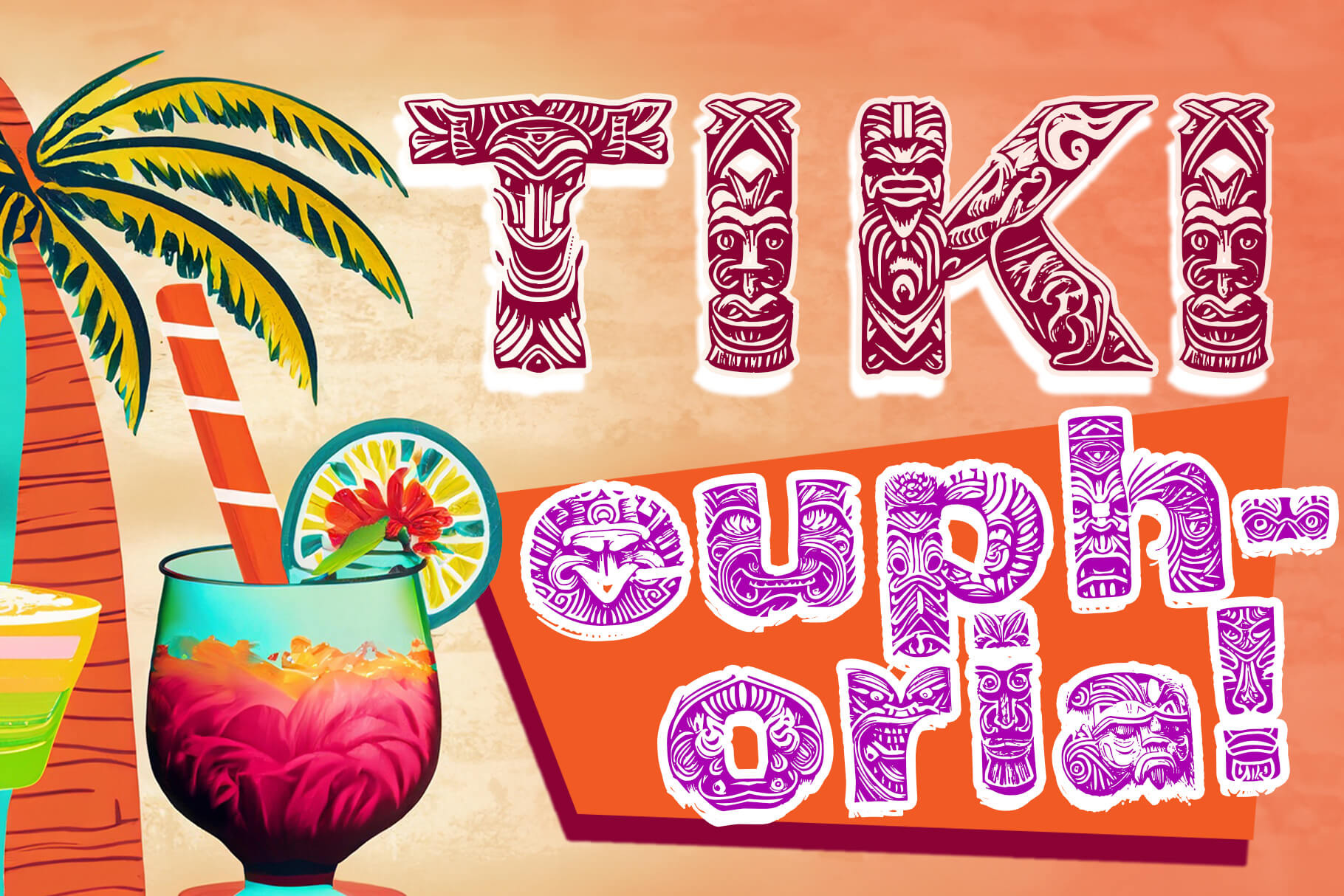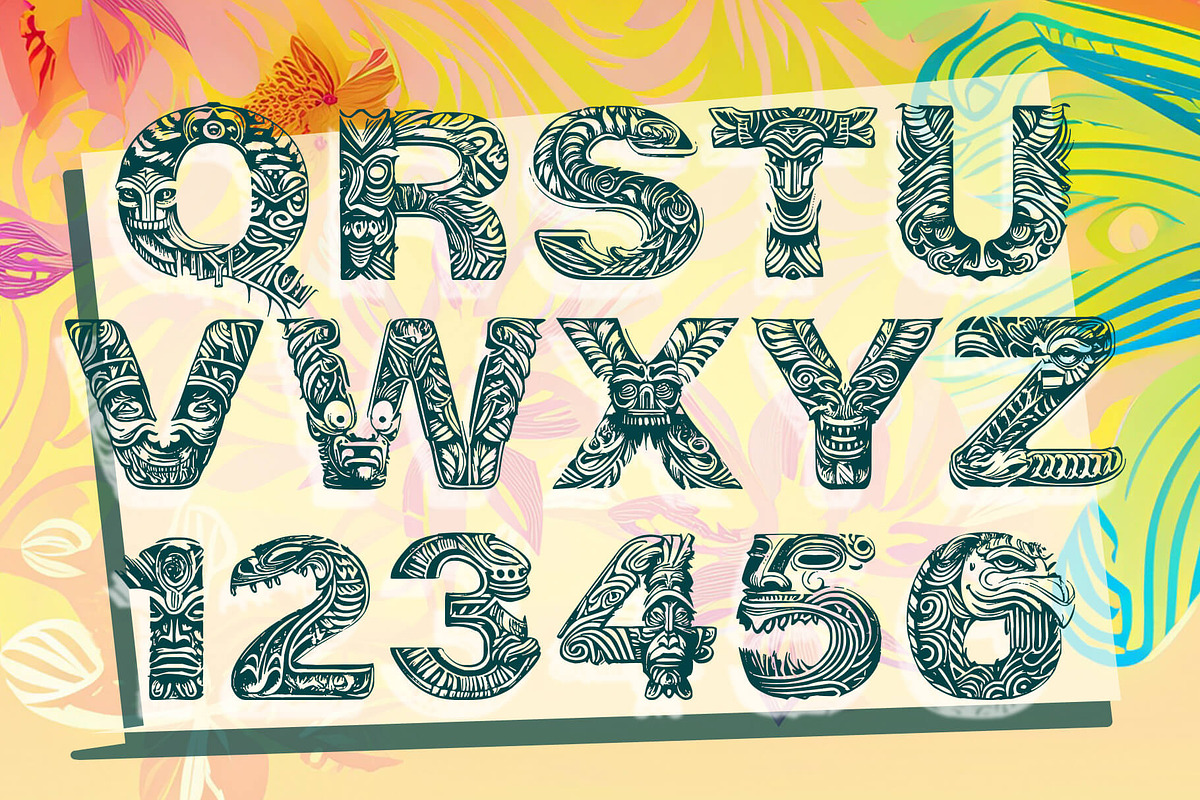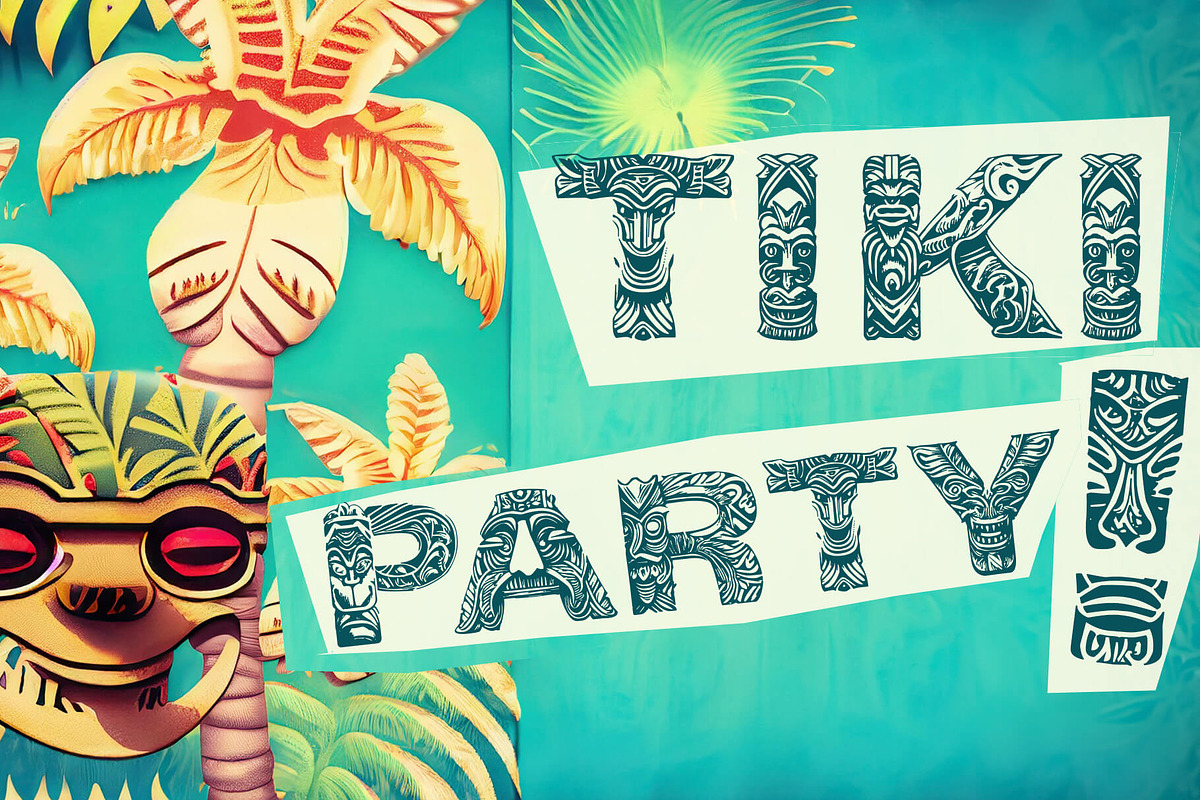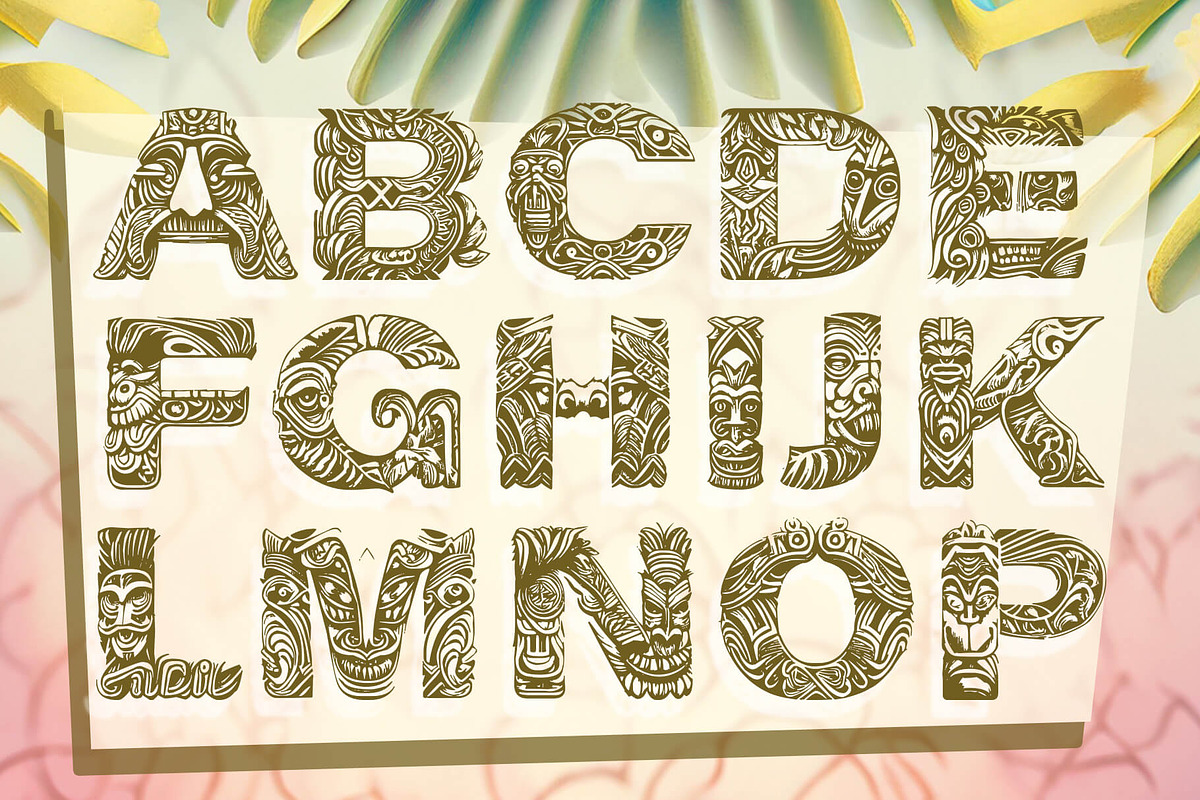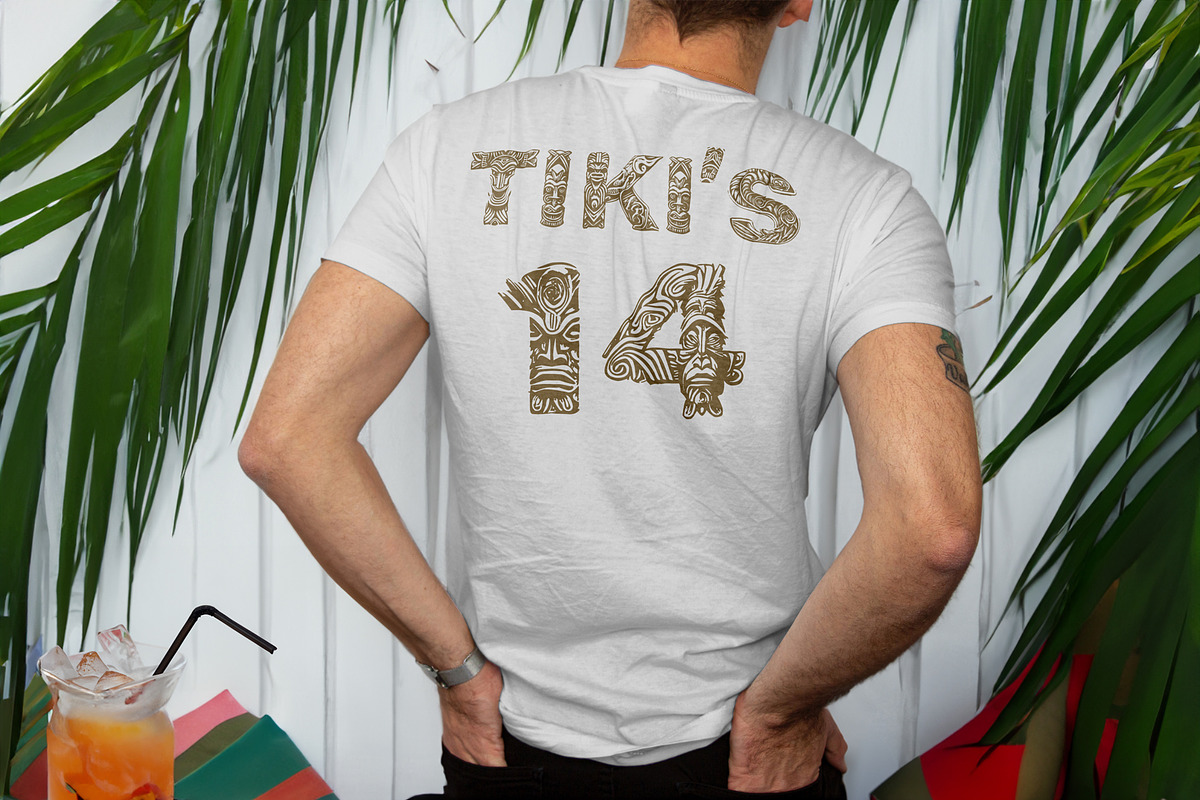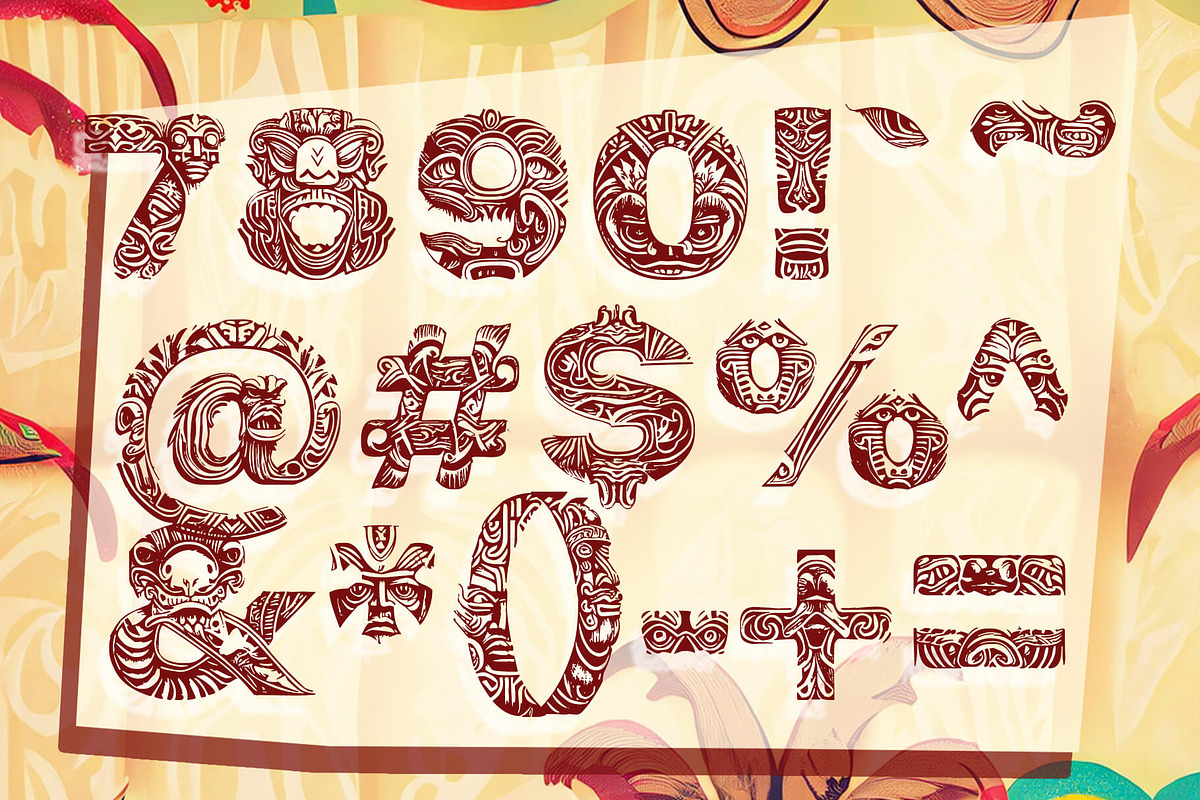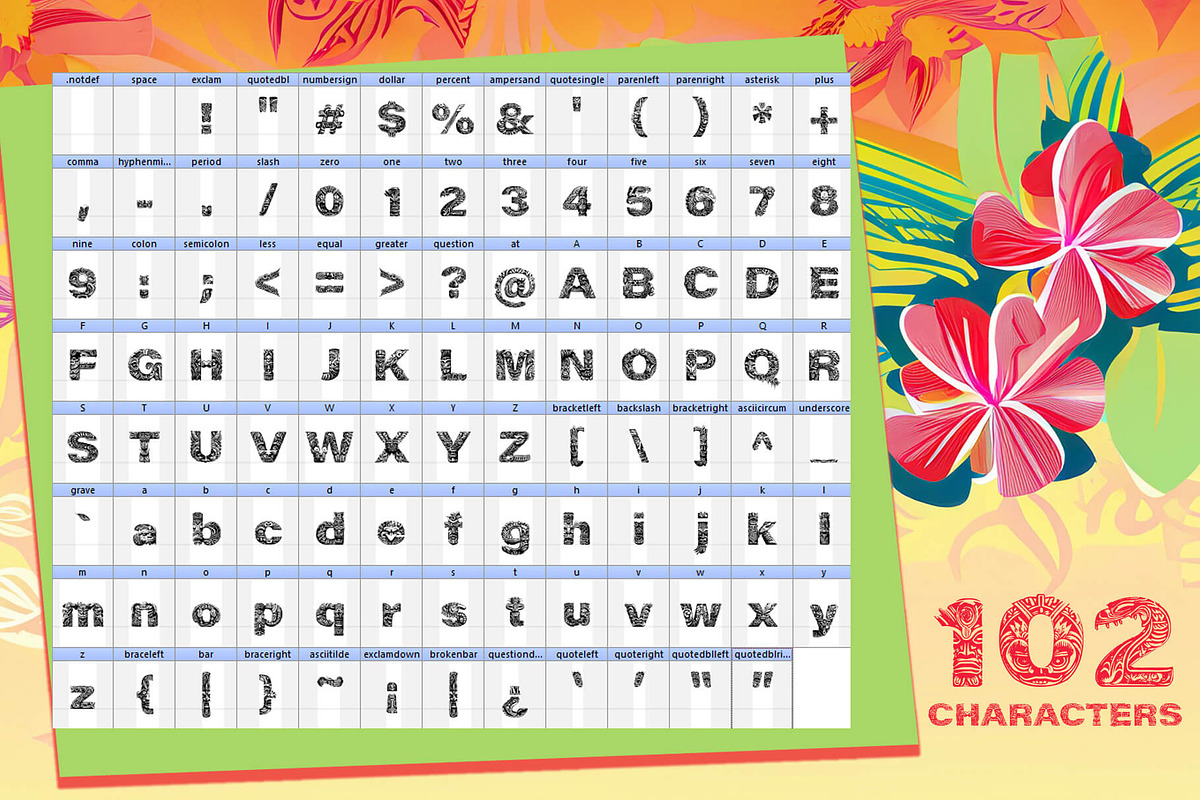
Tiki Euphoria Font
If you are searching for a Tiki font, search no further. This Tiki Euphoria font is a captivating font that immerses your designs into an imaginative world. Adorned with enigmatic Tiki heads and exotic decorations, this dark and mesmerizing typeface adds a touch of intrigue to any project. Let Tiki Euphoria unleash its enigmatic charm and transport your designs to a world of tropical enchantment.